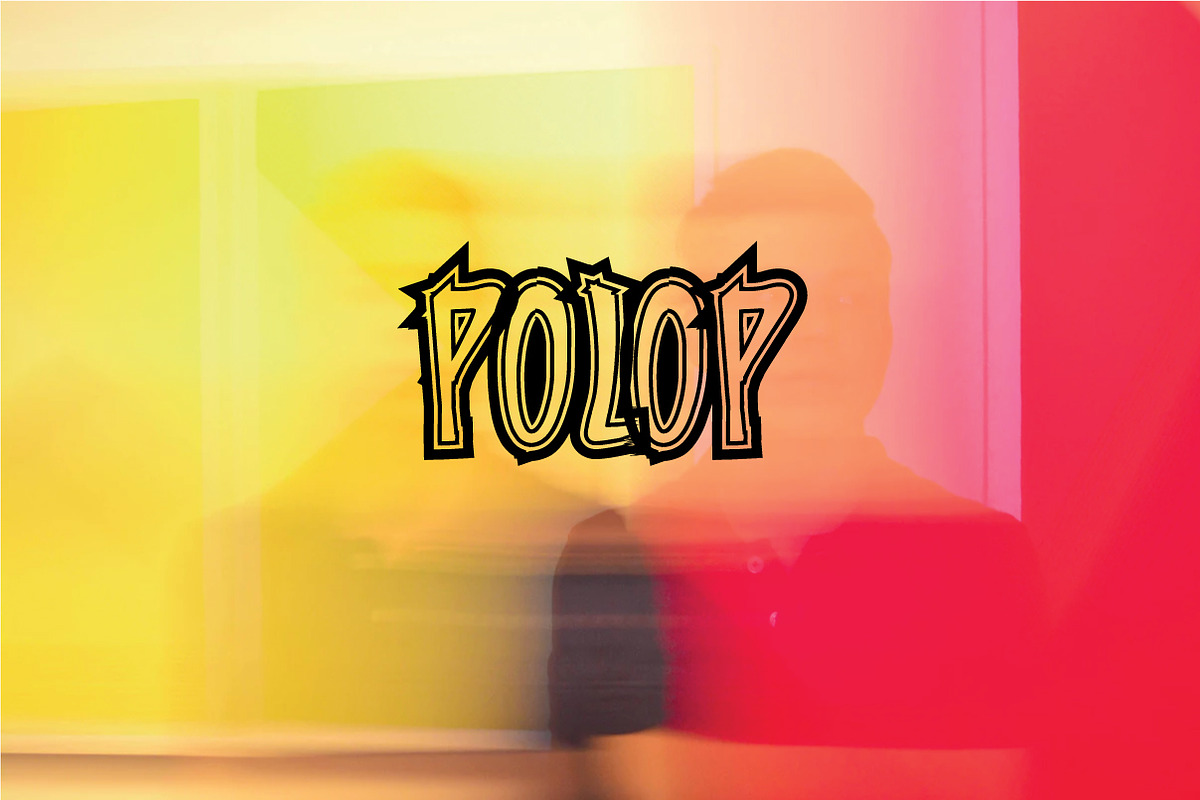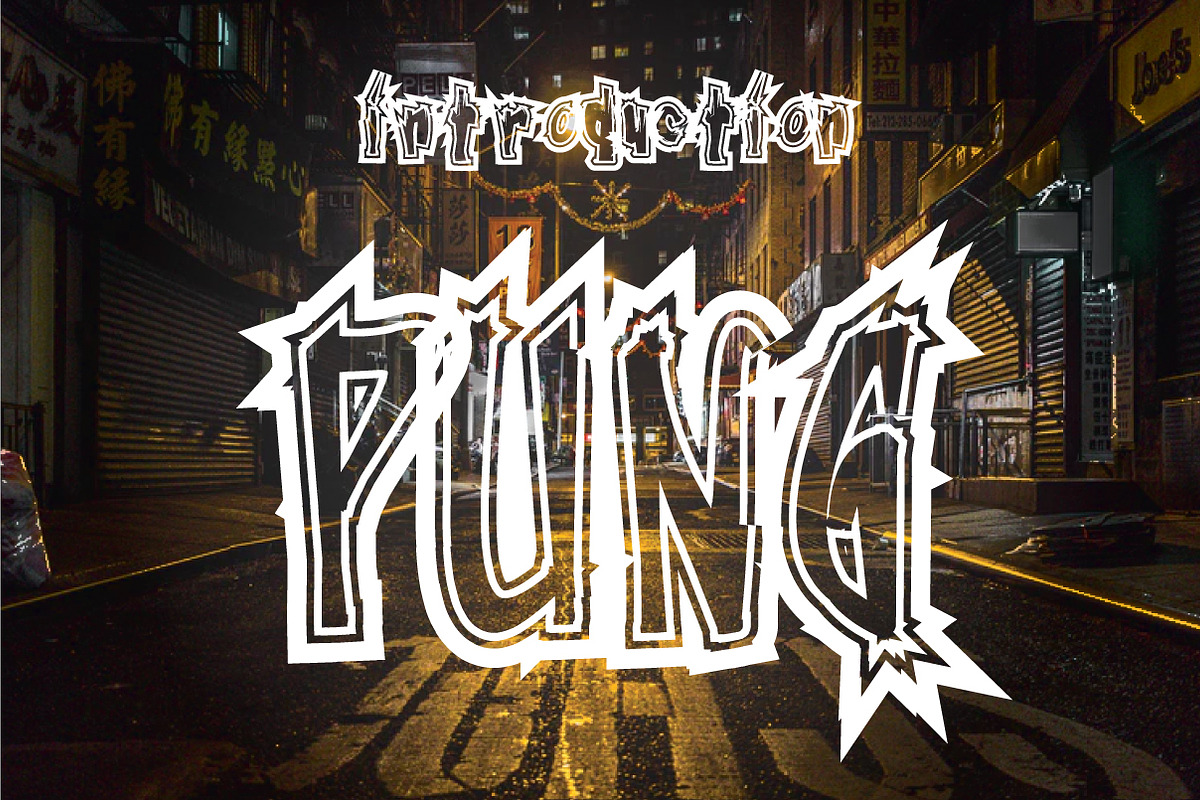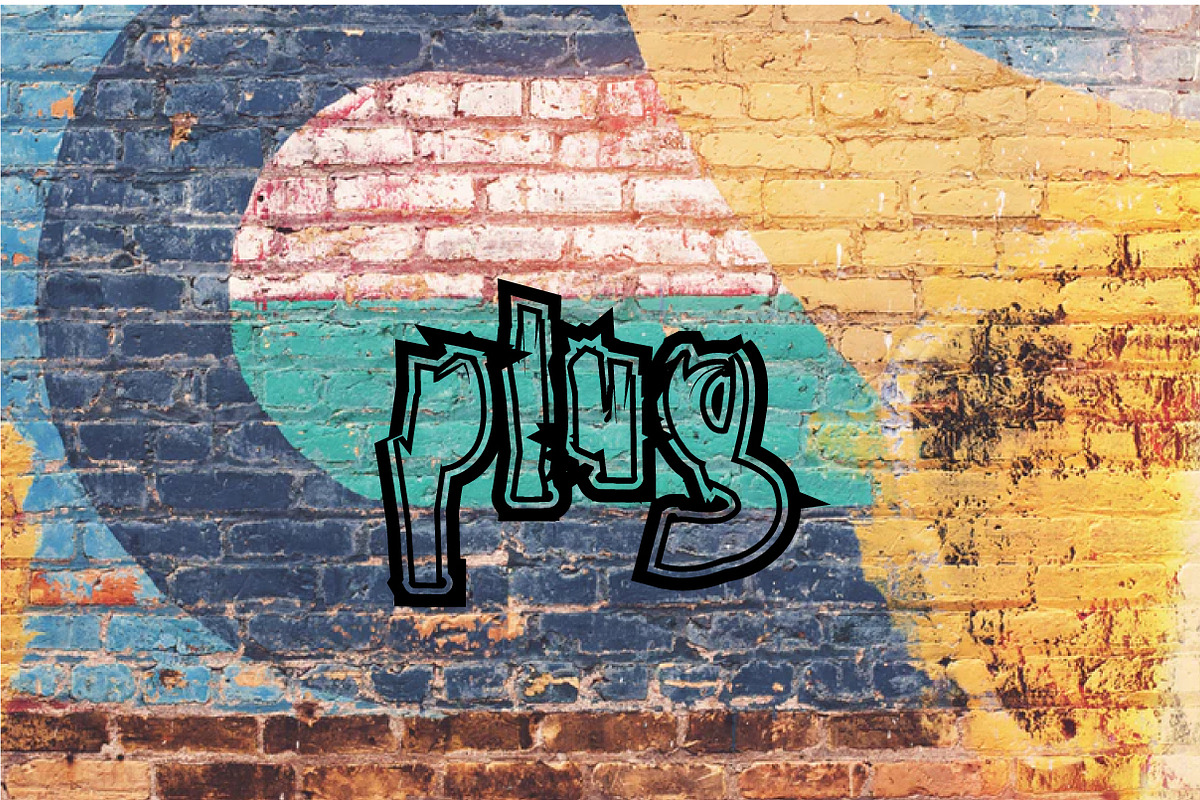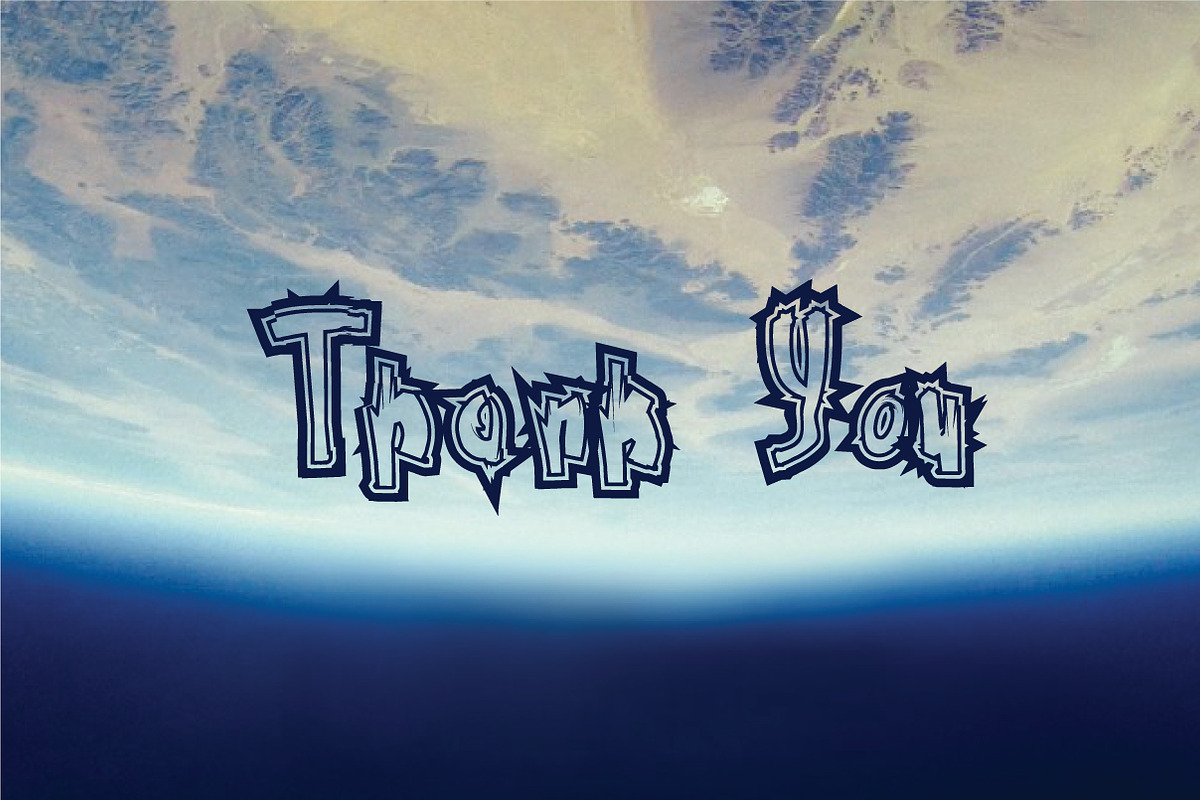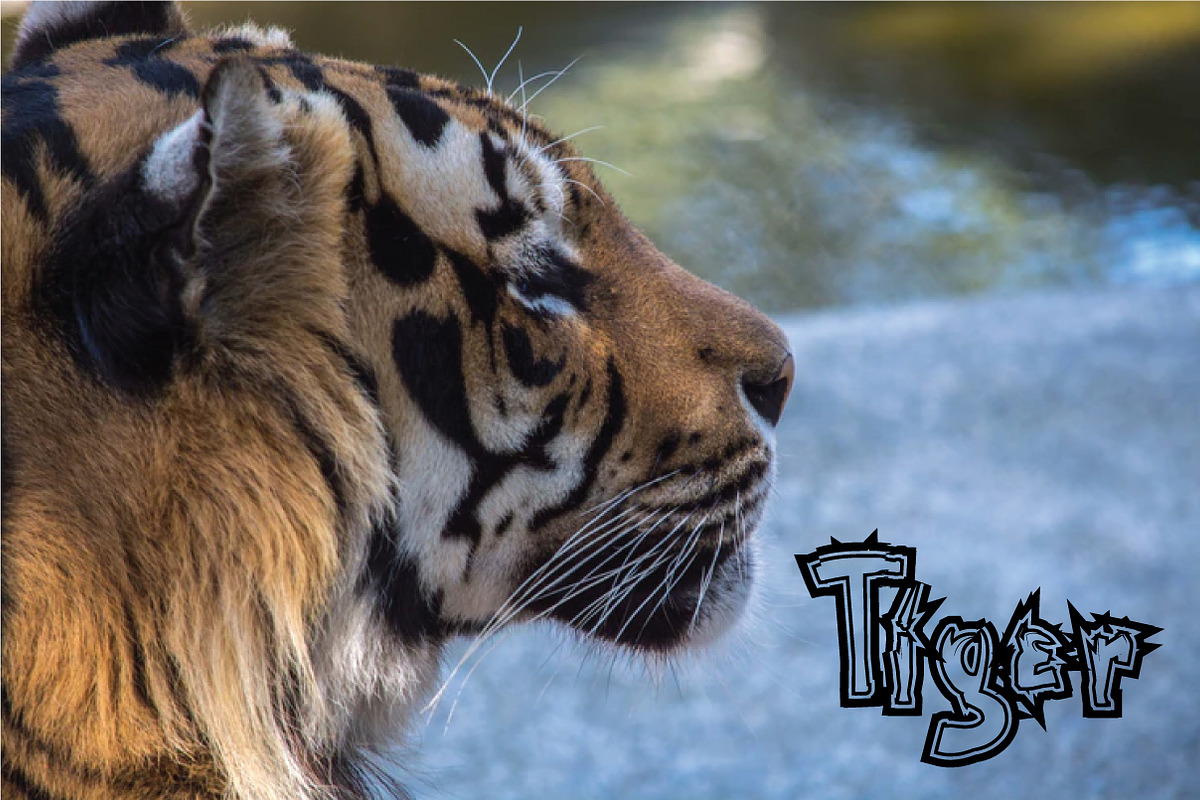
font pung
Font Pung by faisalovers is a font selected for branding, posters, packaging, typography.
Why font pung is worth a look
font pung by khalwa.studio fits naturally into Branding, posters, packaging, typography.